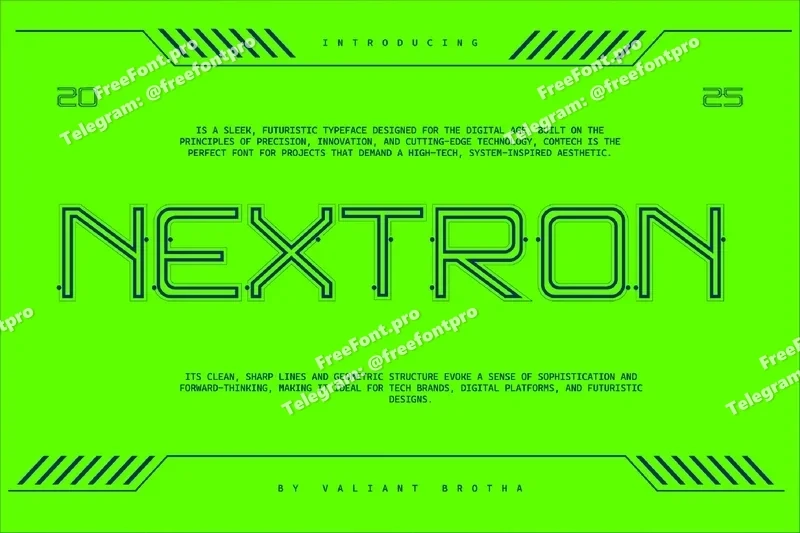
Nextron – Futuristic Font
Nextron is a cutting-edge display font that blends futuristic design with technological precision. Its bold, sharp edges and geometric structure convey a sense of innovation and forward-thinking energy. Perfect for projects that demand a modern, high-tech vibe, Nextron’s sleek form is ideal for digital interfaces, tech branding, and futuristic design concepts. With its dynamic presence, Nextron embodies the essence of a digital future, making it the perfect choice for any project that seeks to stand out in the world of technology and innovation.